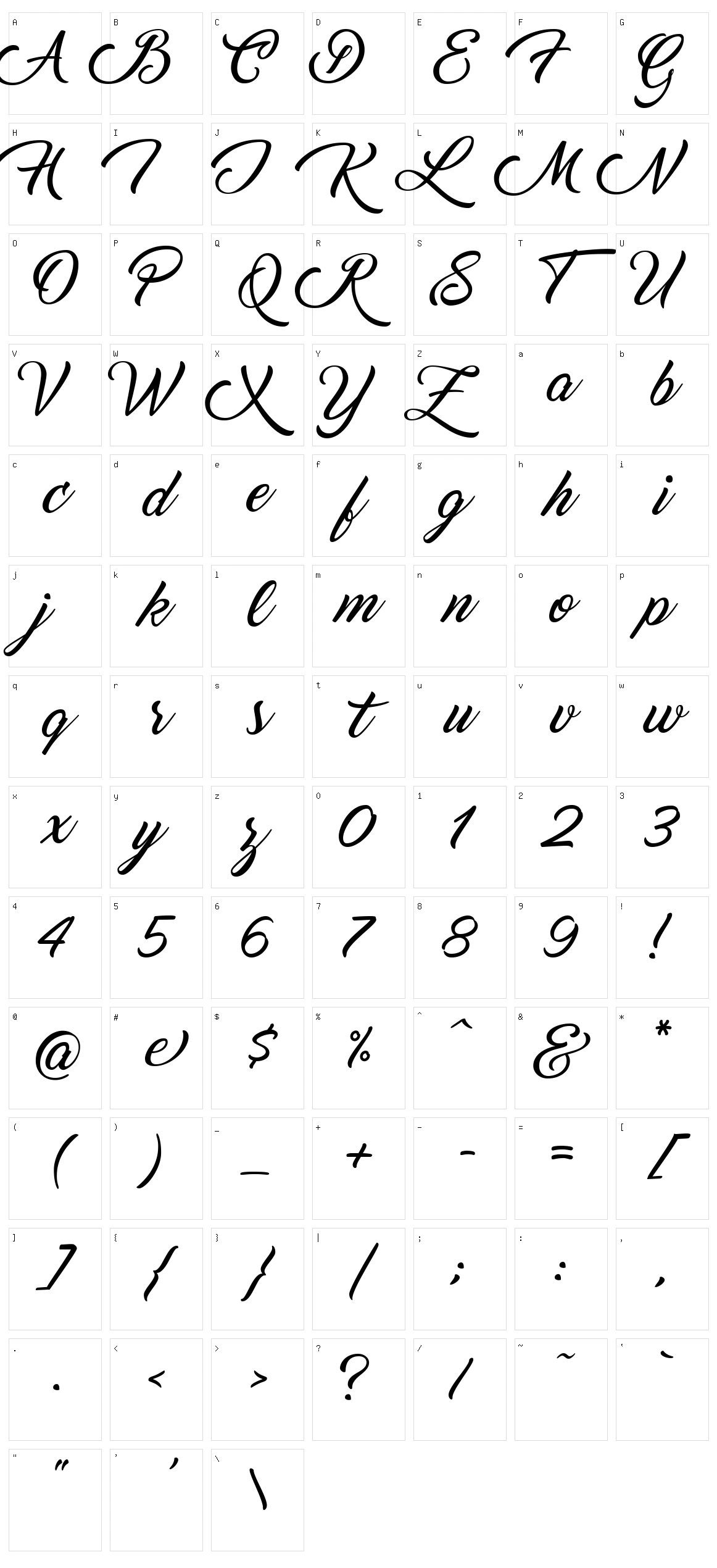
The free font Marguerite is carefully designed by StereoType, showcasing a thoughtful balance of creativity and usability and falls under the Script font style. When you download the ZIP file, it contains only 571.29 KB of font files, making it lightweight and quick to download. Please review the license details below to understand permitted usage and distribution rights. If license information is not available, we recommend using this font for personal projects only or contacting the author directly for commercial usage permissions.